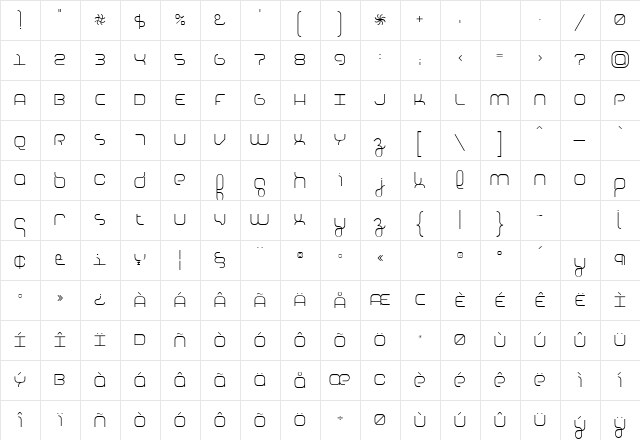
Basis Regular Font Preview
Basis Regular
Basis Regular Font Details
Design Context for Basis Typeface
Basis takes a measured approach to typography — its balanced proportions and neutral character make it a reliable workhorse for both digital and print work.